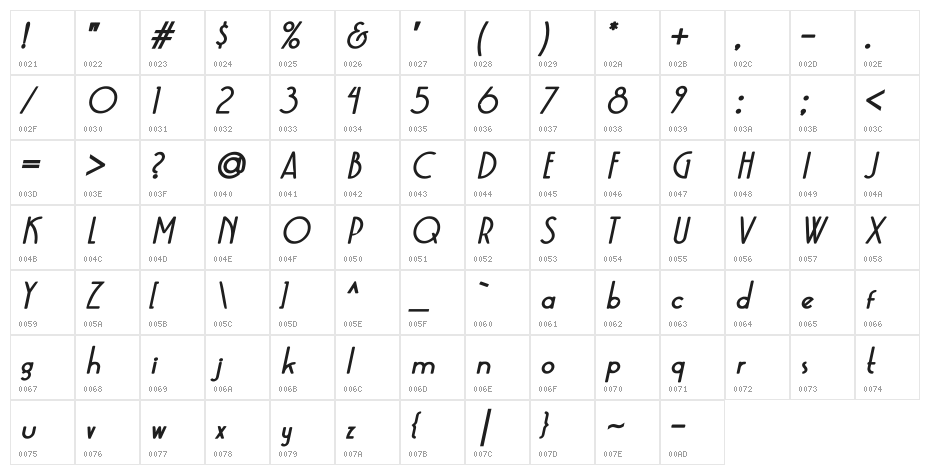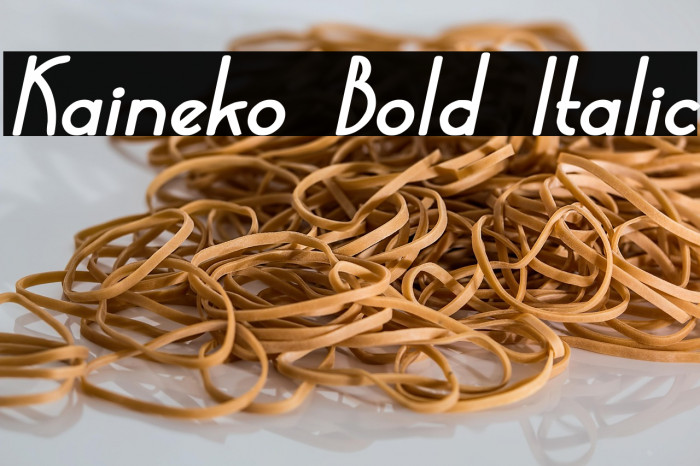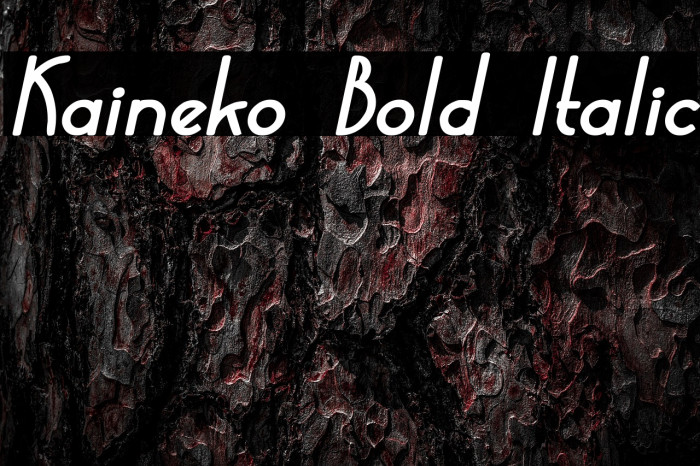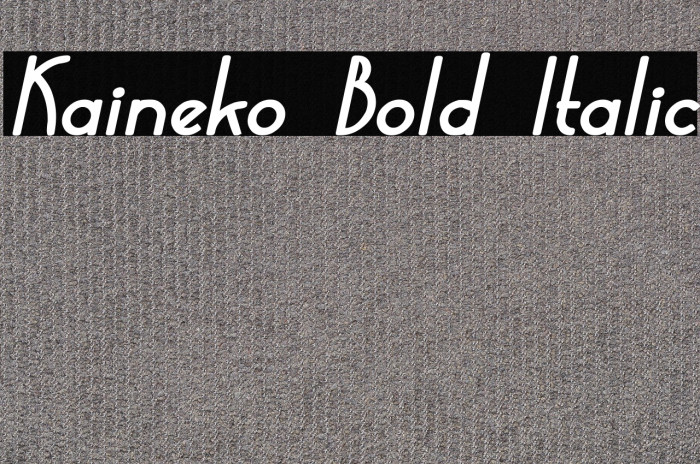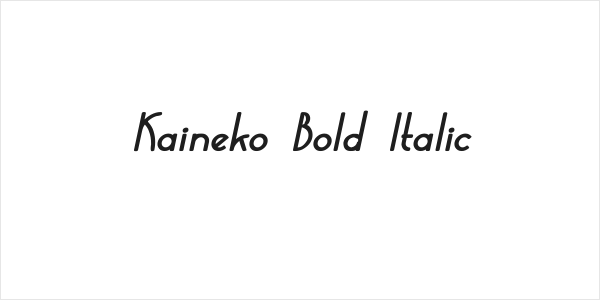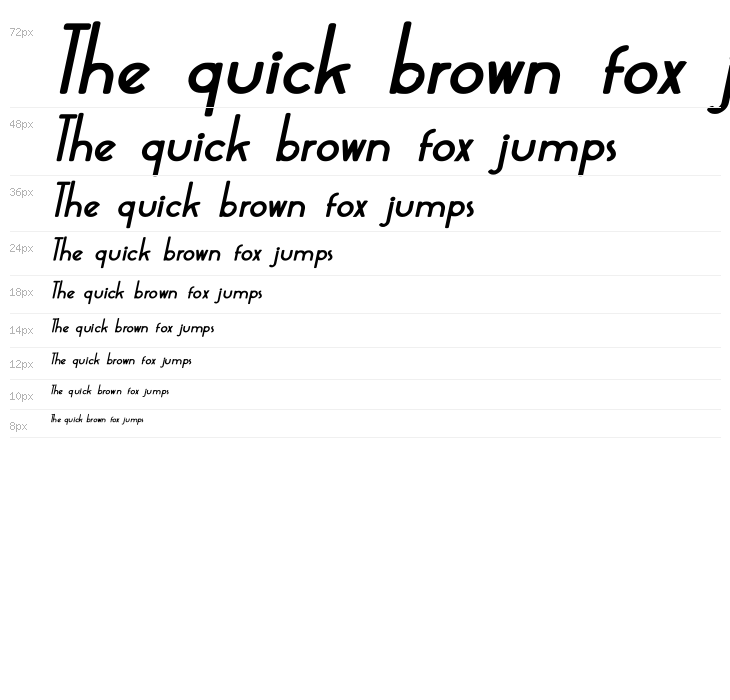
Kaineko Bold Italic Font
Kaineko Bold Italic Description
This font features a dynamic and playful style with a bold and italicized appearance. The characters are slightly elongated, giving them a sense of movement and energy. The strokes are smooth and consistent, with a medium contrast between thick and thin lines. The uppercase letters are tall and elegant, while the lowercase letters maintain a friendly and approachable look. The numerals are clear and distinct, matching the overall aesthetic of the font. Special characters are creatively designed, adding to the font's unique personality.